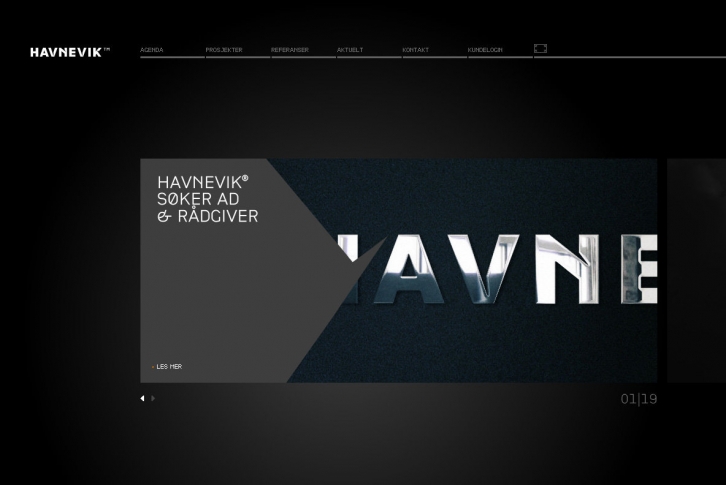
CP Companyâ„¢ is a typeface designed in 2000 as part for the corporate image and internal communication of the Italian clothes manufacturer C.P. Company.
The company makes intensive use of press and web solutions for promotion and advertising, so they needed a typeface that is consistent for reading both on paper and on screen. So every weight of CP Company was TrueType hand hinted.